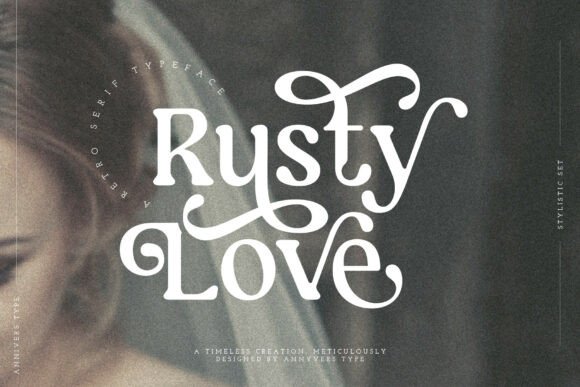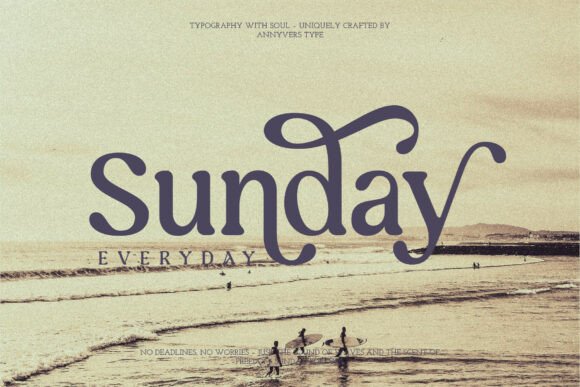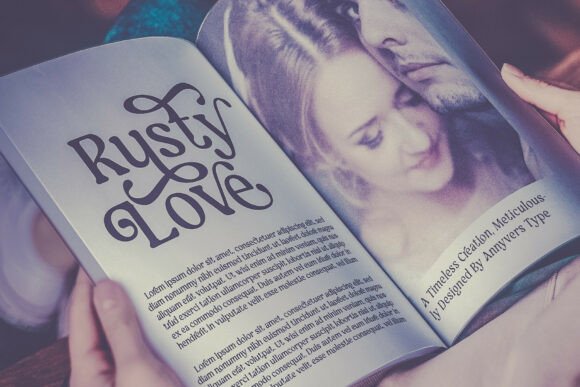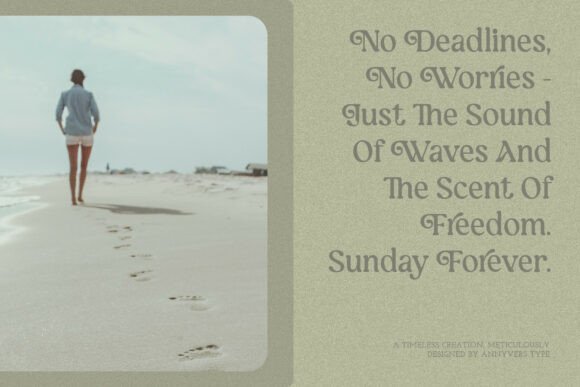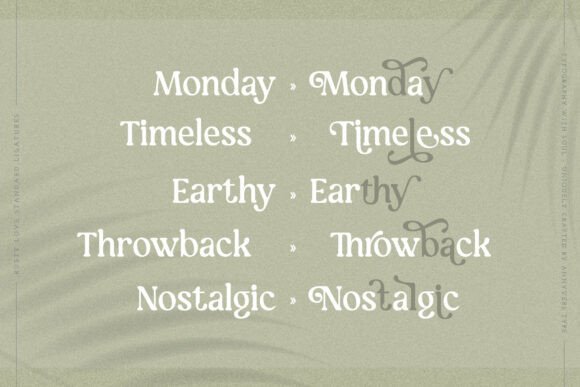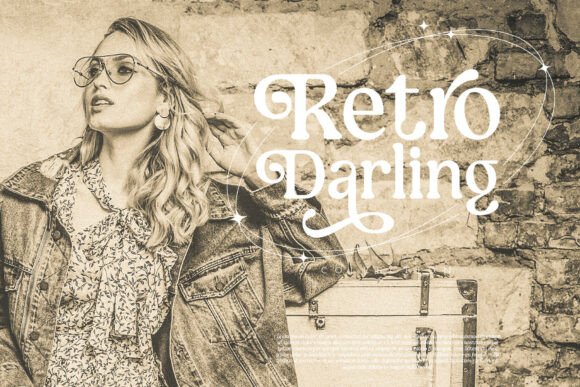
Introduction to Rusty Love Font
Romantic, artistic, and vintage — Rusty Love is a retro serif typeface that celebrates expressive beauty.
Its elegant serifs and swirly alternates combine sophistication with creative flair, evoking the warmth of old love letters and timeless design Equipped with ligatures, alternates, and multilingual support, Rusty Love is perfect for wedding invitations, editorial titles, fashion branding, posters, and romantic packaging.